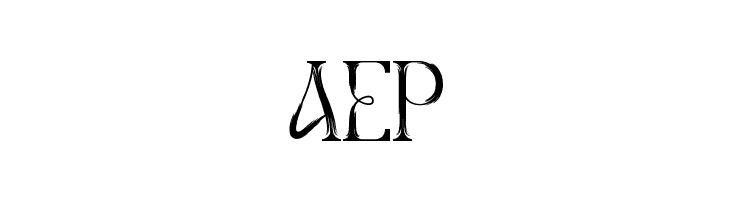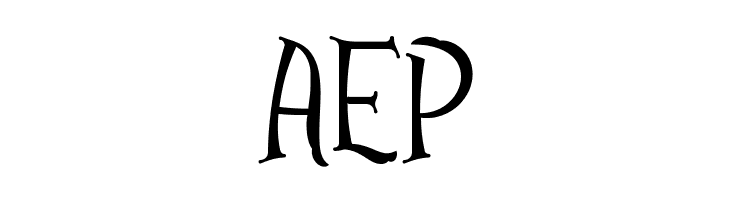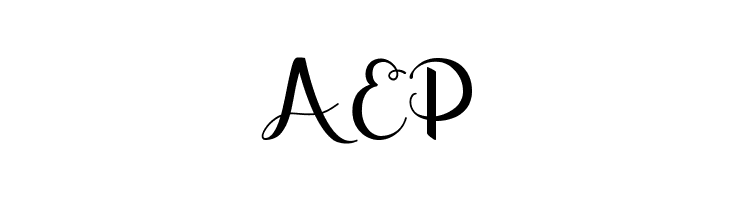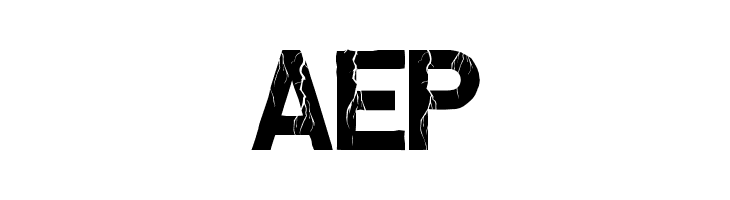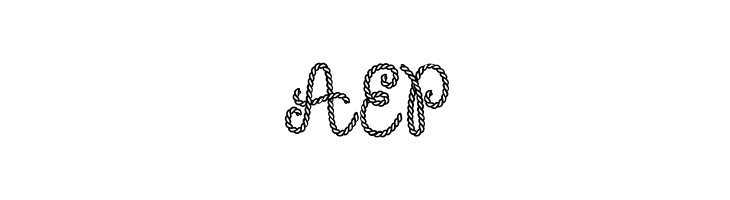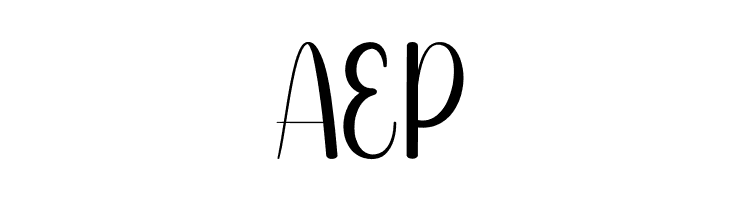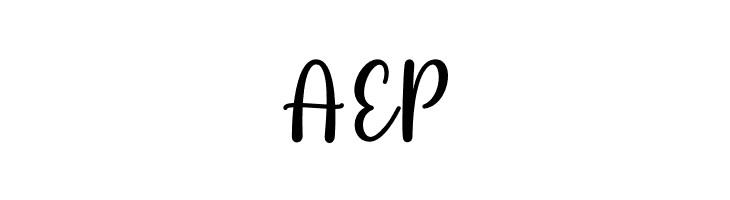
An elegant, decorative font with calligraphic elements and intricate flourishes.
A bold, distressed font with a lightning-like texture for dynamic designs.
A decorative, whimsical font with elegant swirls and a playful handwritten style.
A playful, informal handwritten font with loose, flowing letterforms.
A playful, rope-themed font with a detailed, three-dimensional appearance.
A whimsical, handwritten font with playful, uneven strokes.
A whimsical and elegant script font with decorative loops and swirls.
A bold, hand-drawn font with a playful, textured design.
A lively and energetic script font with fluid strokes and a hand-drawn aesthetic.
A playful, bold script font with a handwritten style.